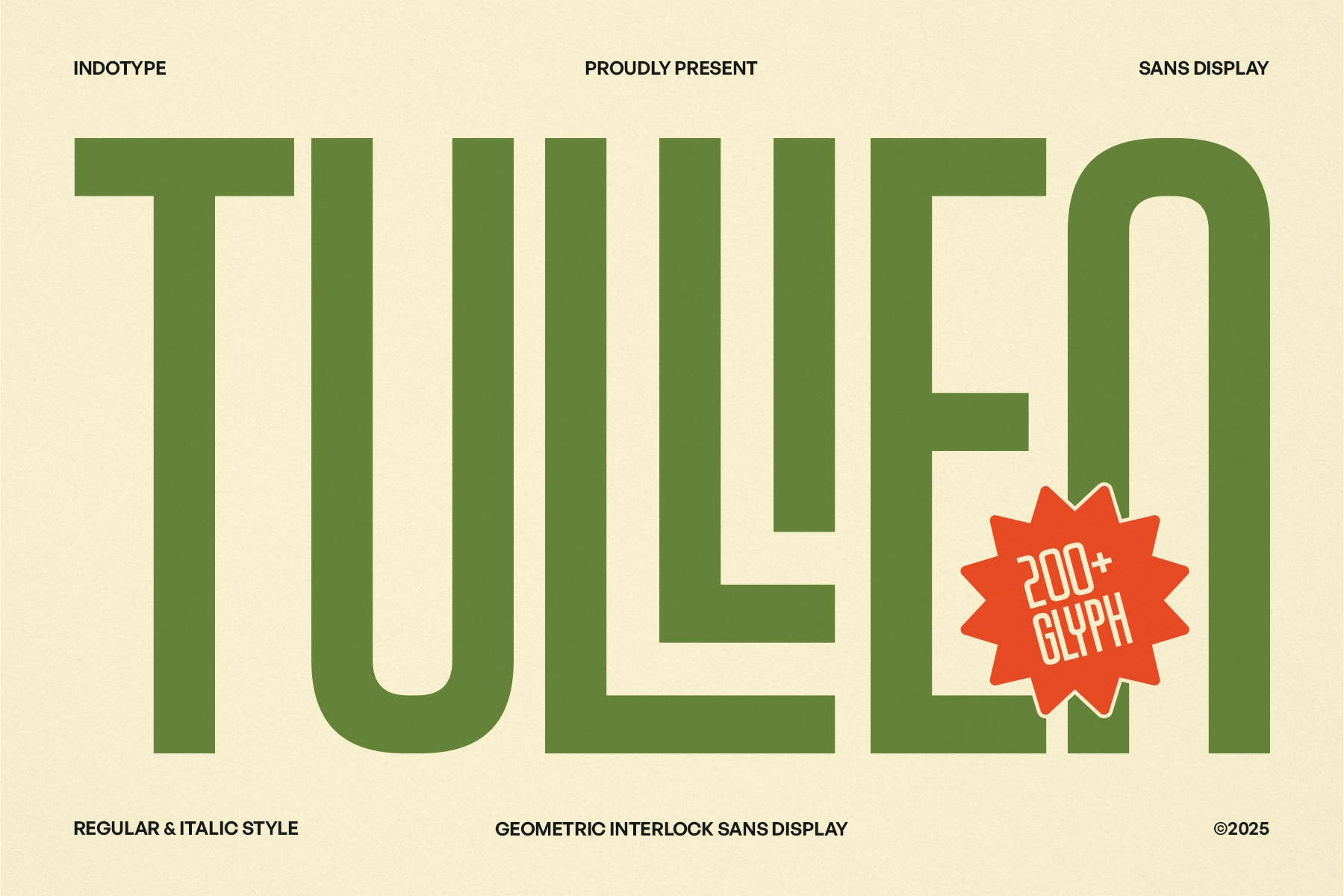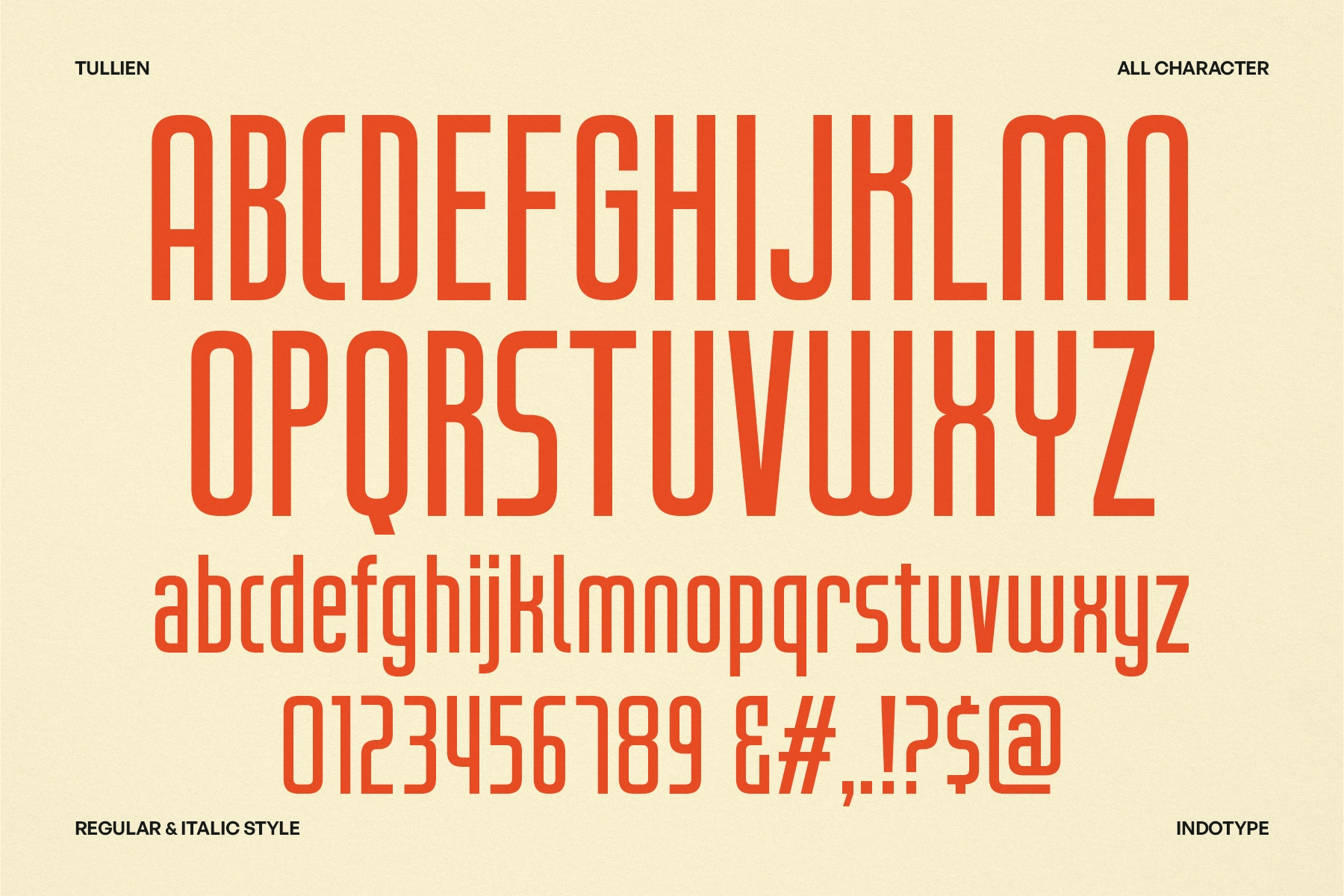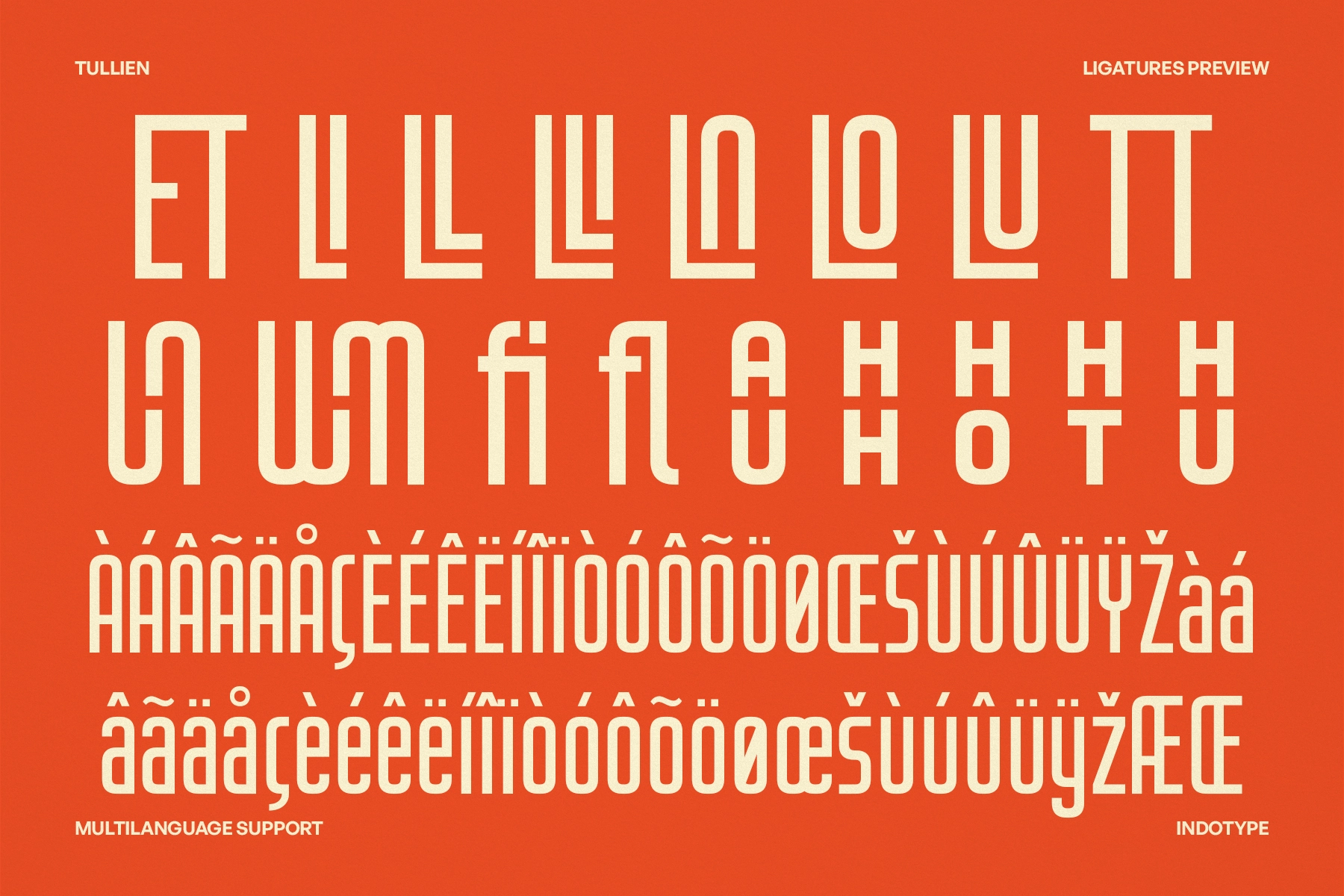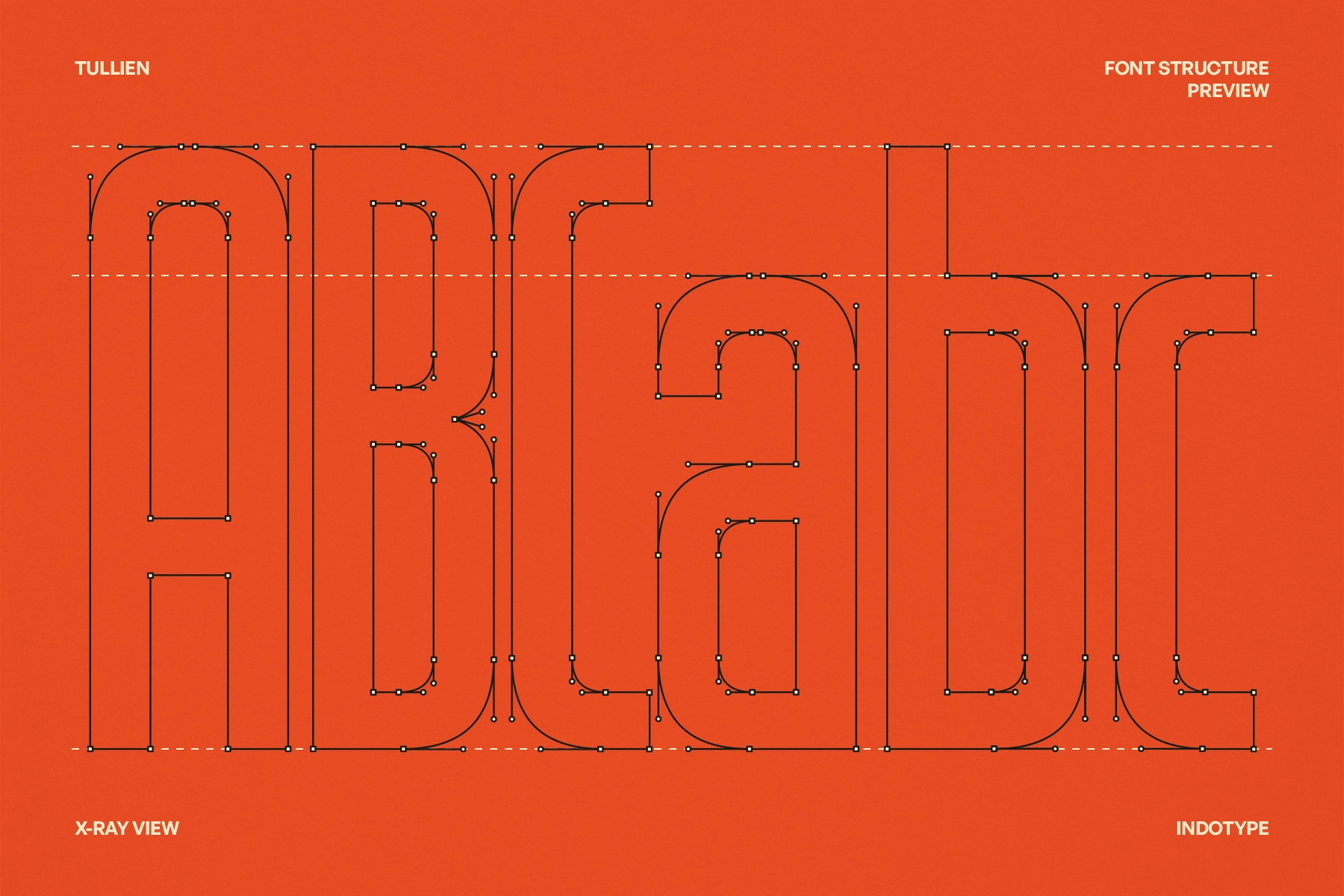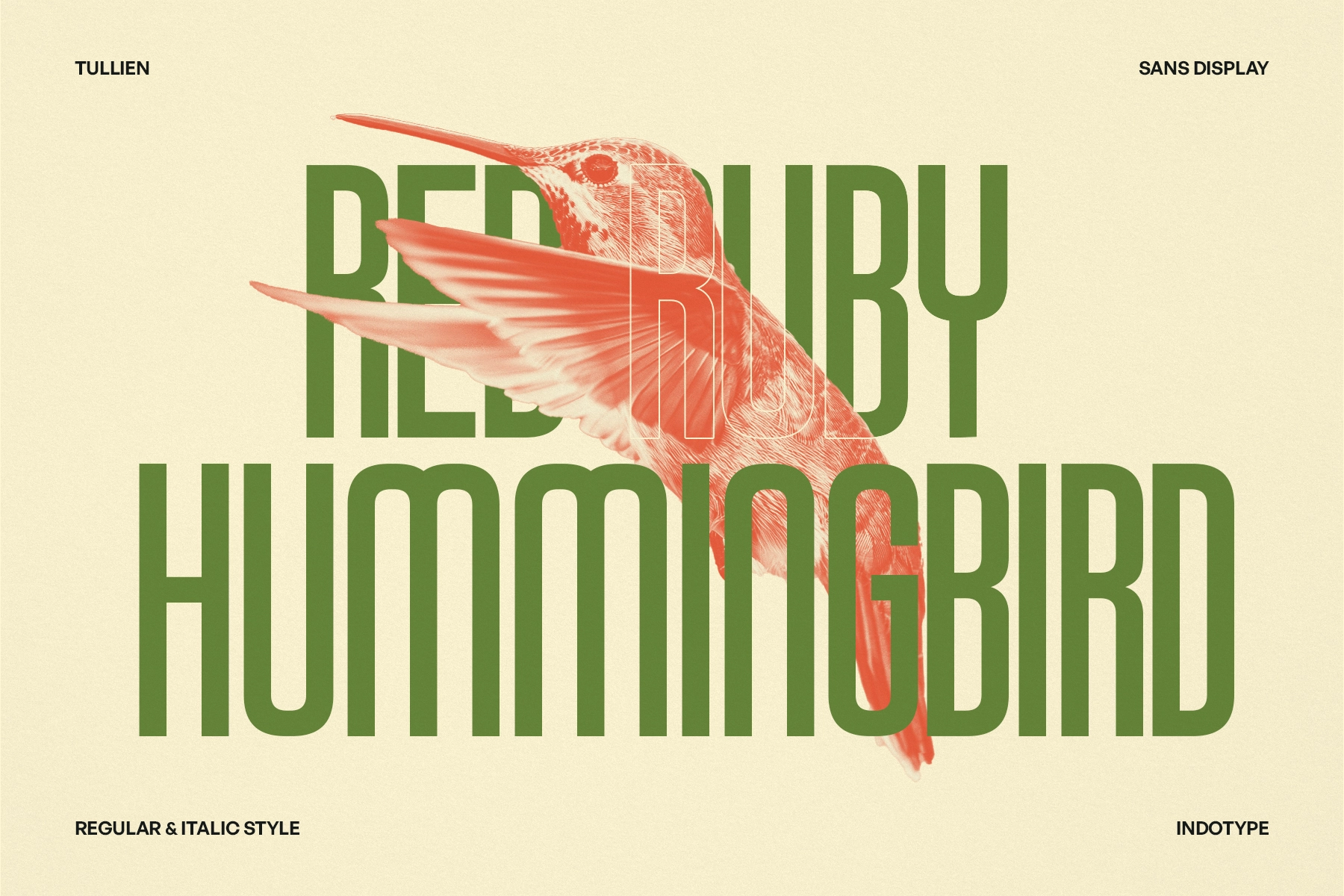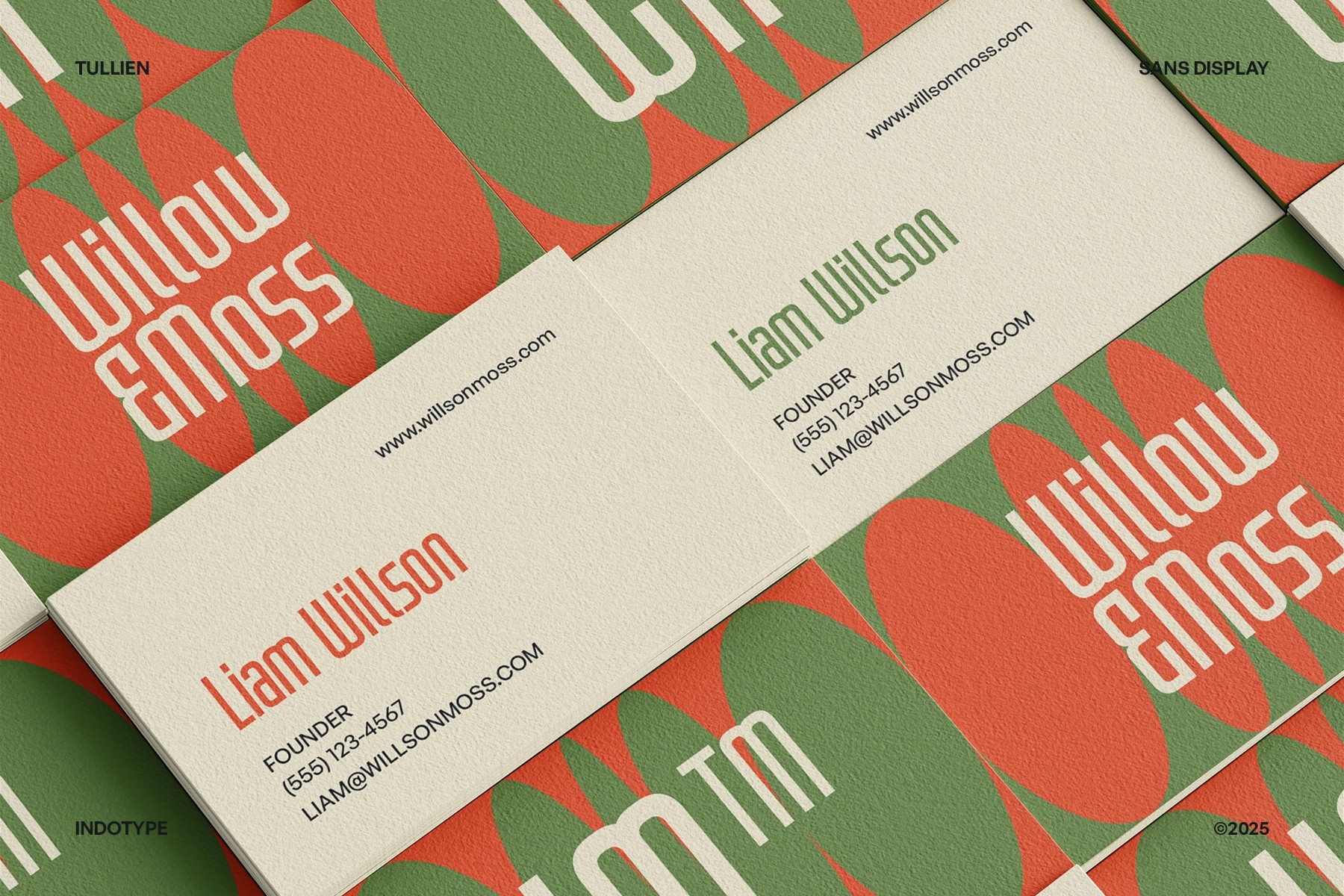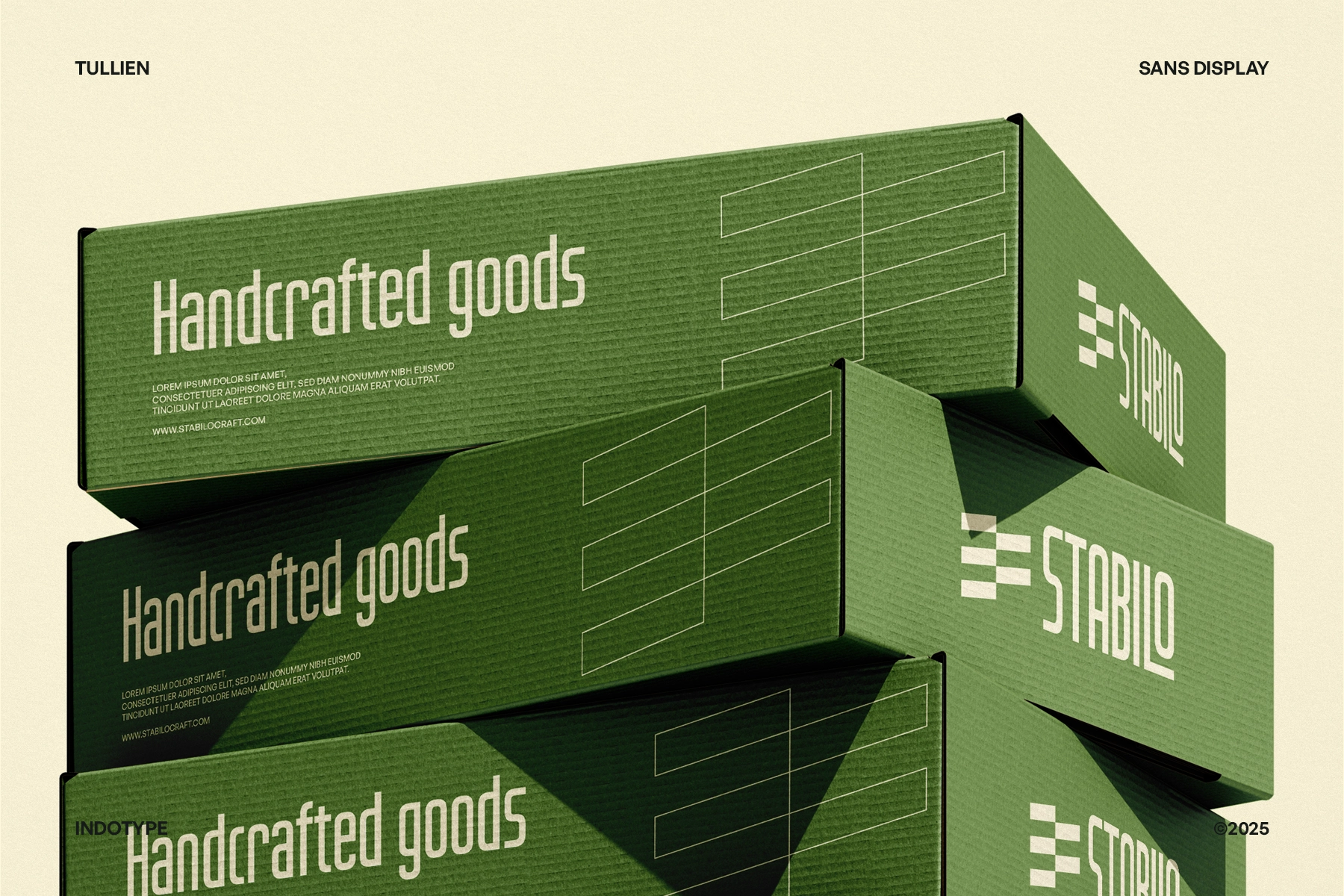
Tullien - Bold Geometric Display Font
This display typeface is tall, condensed, and highly structured, with interlocking letterforms that turn simple words into graphic statements. Its geometric construction, narrow counters, and rounded internal cuts create a bold mechanical rhythm for layouts that need instant recognition.
Tullien works best at large sizes, where its modular details and sharp spacing can take control of the composition without apologizing for being loud. Use it for music posters, festival graphics, album covers, tech branding, editorial titles, fashion campaigns, packaging, sports graphics, social media headers, event identities, merch, signage, and more.
- 200+ Glyphs
- Regular & Italic Styles
- Numerals, Punctuation & Symbols